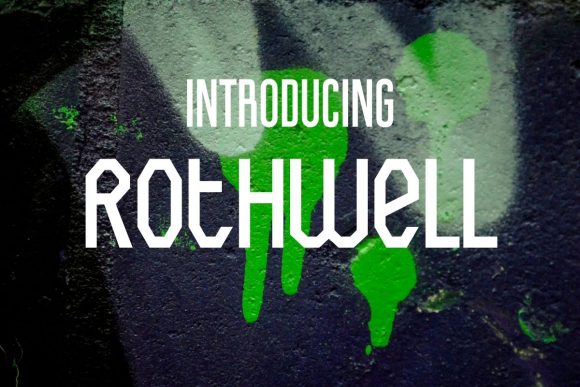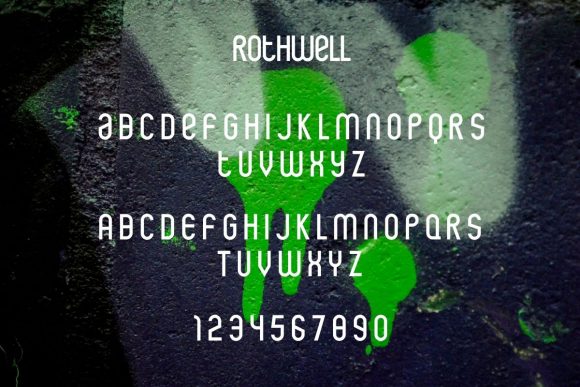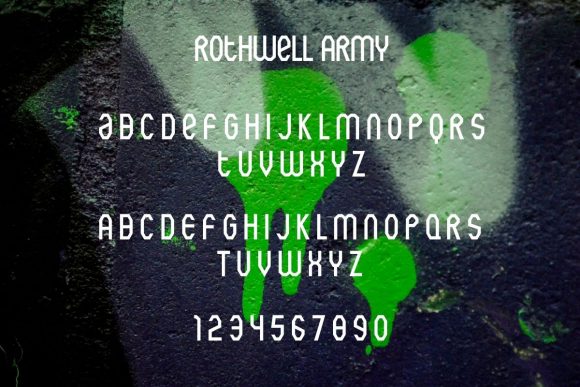
About Rothwell Font
Rothwell is a unicase, sans serif font that is available in two font styles. This font has angular and simple lines that can be used to make your design stand out.